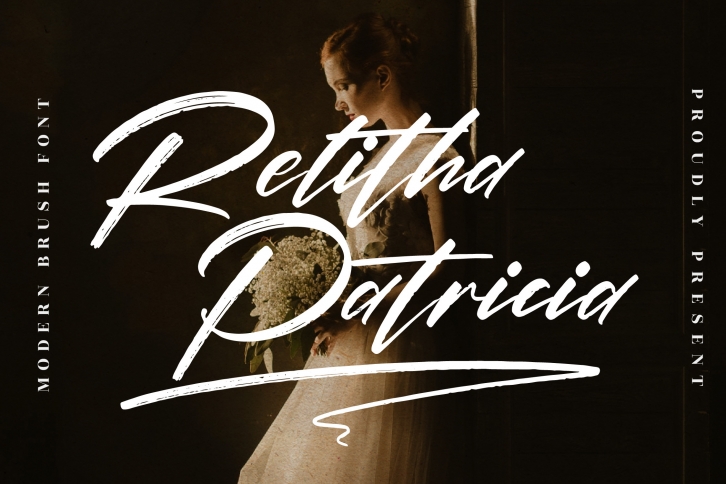
Relitha Patricia is a lovely script font featuring charming, playful characters that seem to dance along the baseline. Add this font to your most creative ideas, and notice how it makes them stand out!